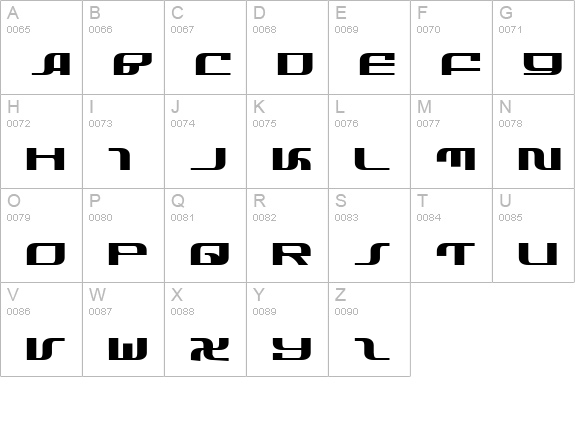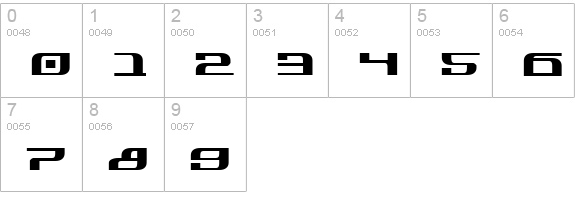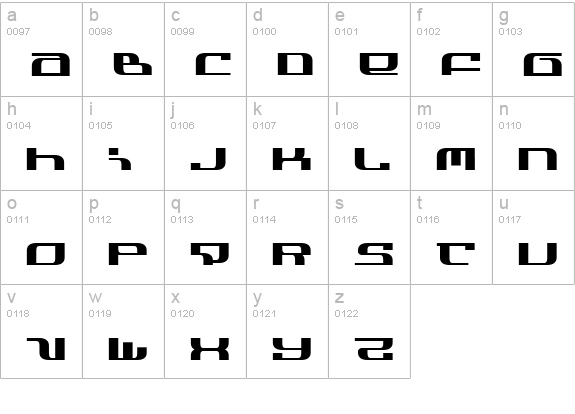
Infinity Formula Expanded is a distinctive, extended-width variant in the Infinity typeface family \xE2\x80\x94 well suited to design and typography projects.
Infinity Formula Expanded font is a stylish and modern typeface that exudes sophistication and creativity. With its sleek lines and elongated letterforms, this font is perfect for a wide range of design projects, from branding to editorial layouts. The expanded version of the Infinity Formula font adds a unique twist to your text, making it stand out and command attention. What makes Infinity Formula Expanded font even more appealing is that it is available for free download at FontsMarket.com. This means that you can easily access this eye-catching font and use it in your projects without any cost involved. Whether you're a professional designer or a hobbyist looking to add some flair to your creations, Infinity Formula Expanded font is a versatile and stylish choice that won't break the bank. Download it today and elevate your designs with this stunning typeface.